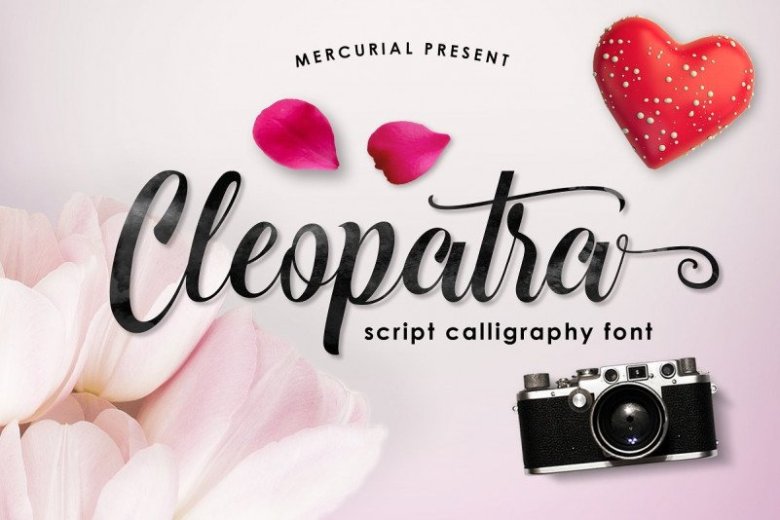
Cleopatra Script Font
Hello font lover! Introducing Cleopatra Font. This is a handmade calligraphy style. The font is heavy on ligatures, as there are a lot of fancy letter connections. It’s offer a decent amount of stylistic alternatives for many letters! Cleopatra Script is designed and shared by MERCURIAL.
Style fresh and modern calligraphy script new. typeface attract interesting and so beautiful! Cleopatra can be used in various applications such as Microsoft Word, corel draw, adobe illustrator, adobe photoshop. Cleopatra also has some extra glyphs that will create the character of the more interesting font, and font is also suitable for making logos, invitations, greeting cards, quotes, posters and others.